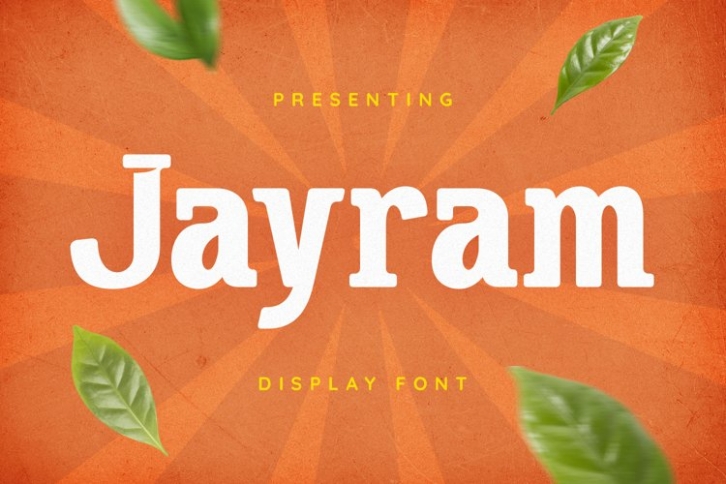
Jayram is a gorgeous font that was realeased on October 24, 2021. The font can be used in many style contexts and design environments. Perfect for invitations, magazines, websites, logos, and more! It was designed by plusstore and the file size is 10.15 MB. Thanks for checking out this font!